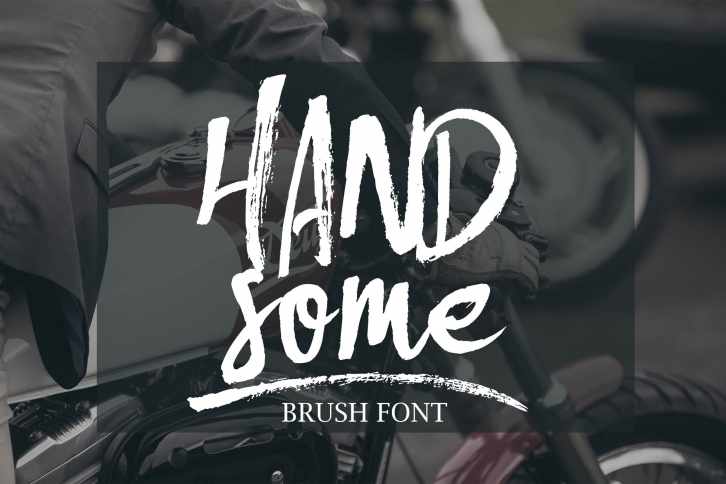
Handsome Script is casual brush script that is suitable for design projects ; logo, branding, poster, quotes, and any other designs. Handsome is unique, so natural and catchy.